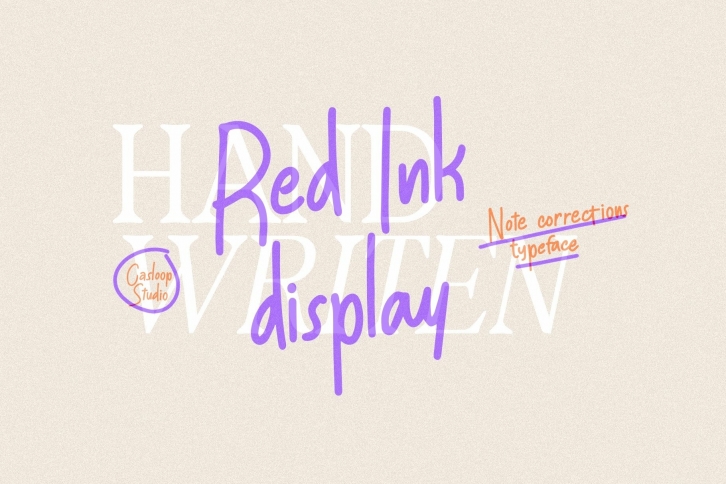
Red Ink Hand Writing Display is a beautiful font that was designed by Casloop Studio. It's a great choice for designers and creatives who need such a font. It was released on November 8, 2022 and the file size is 5.41 MB. Red Ink Hand Writing Display may give a more youthful, expressive and casual look to your project. It is a very beautiful, refined, elegant, and high-quality font.